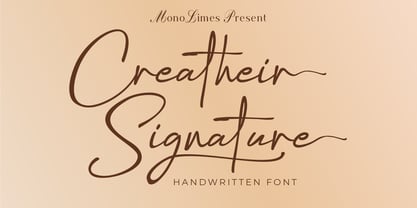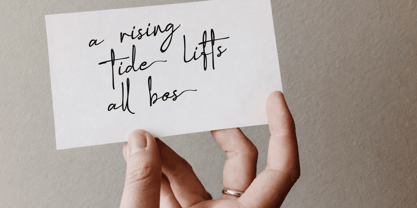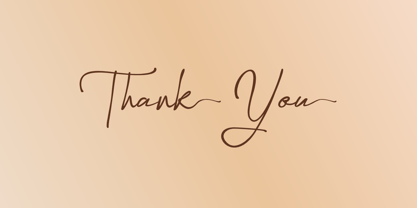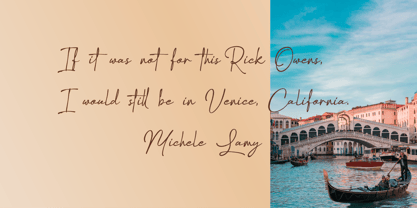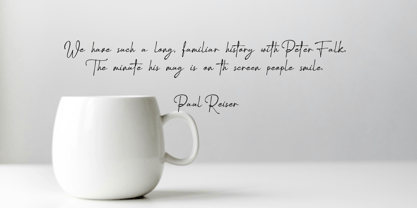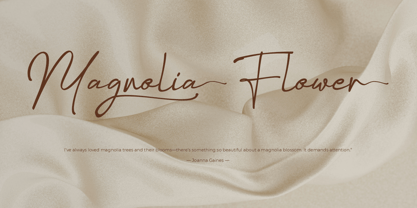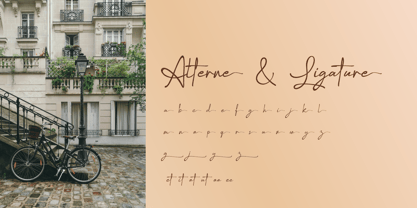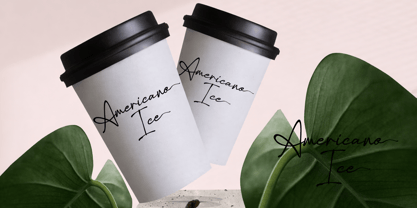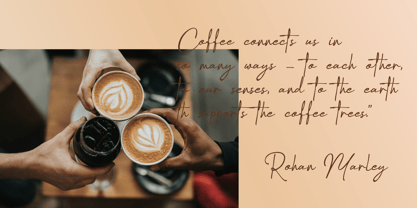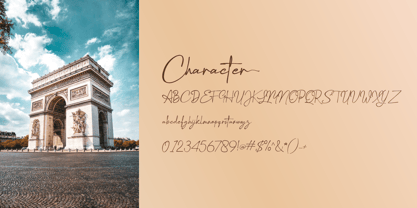
Creatheir Signature
Die Schriftfamilie Creatheir Signature wurde von Brainy Javanika Putra entworfen und von Monolimes veröffentlicht. Creatheir Signature enthält 1 Stile. Mehr über diese Familie
Creather Signature a modern handwritten calligraphy style that resembles a natural personal signature. The strokes are smooth, fluid, and slightly varying in thickness, giving it an elegant and organic feel. Its flowing curves and extended swashes create a sense of sophistication and warmth, making it ideal for branding, logos, wedding invitations, beauty products, and premium packaging. The style balances elegance and readability, capturing the charm of hand-written ink lettering with a contemporary aesthetic.